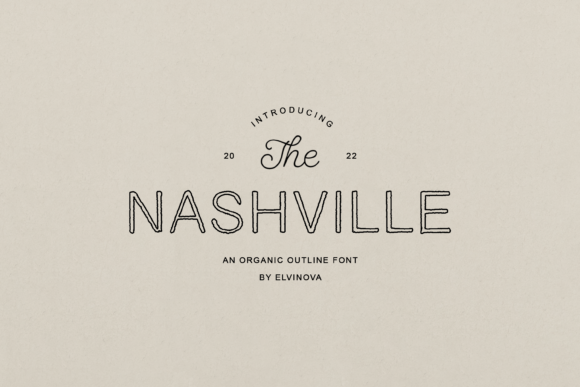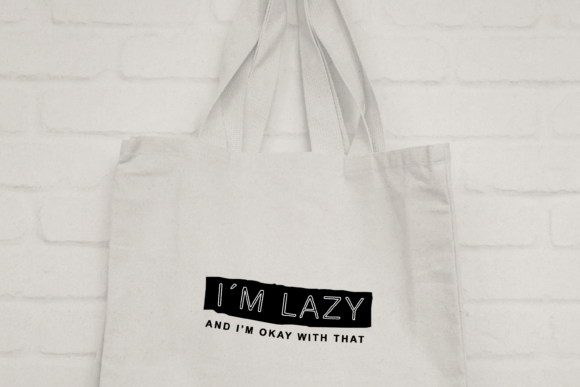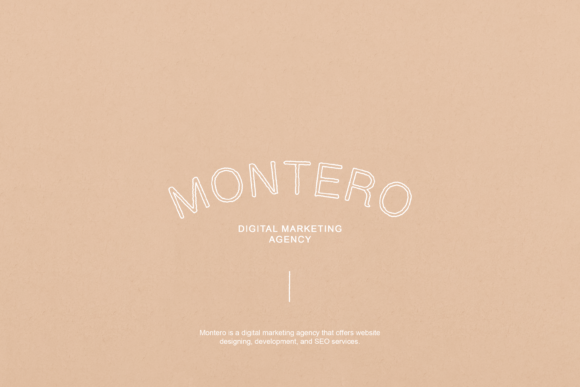
Nashville Font
About the Nashville Font
Make a bold statement with Nashville Font, a powerful and memorable font. Nashville is a natural and airy outline font that feels fresh and down-to-earth. Its organic design gives text a light and breezy vibe, perfect for adding a touch of rustic charm to your projects. Whether you’re creating signage, branding materials, or anything in between, Nashville’s effortless style brings a touch of countryside warmth to your typography.
Nashville’s airy nature makes it ideal for headlines, short-form text on posters or signage, and branding elements requiring a touch of rustic charm. It works particularly well for projects related to food, crafts, or nature-inspired businesses. However, its outline style limits readability in body text or UI applications, where clear and concise lettering is crucial.
Pairing Nashville with a clean sans-serif like Open Sans for body text provides excellent contrast and balance. For a more playful feel, consider a script font such as Pacifico for secondary text elements. A geometric sans-serif like Montserrat could add a modern edge, grounding the organic feel of Nashville.
The overall personality of Nashville is friendly, approachable, and subtly elegant, conveying a sense of relaxed sophistication.
Nashville Font Usage Examples
Nashville Font Example